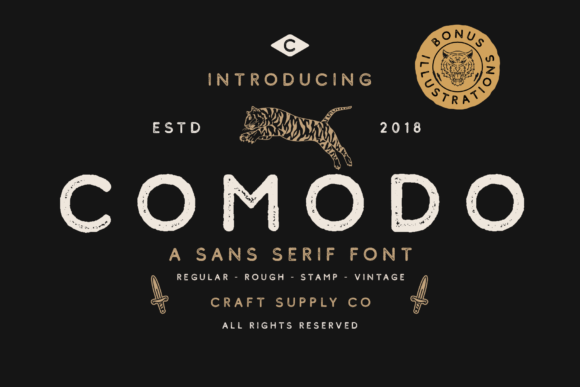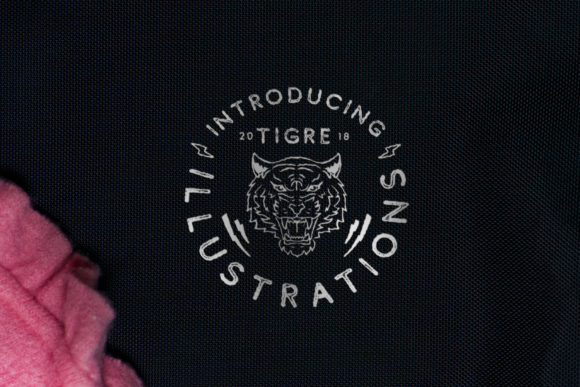
Comodo Font: Vintage Sans Serif for Branding & Logo Design
About the Comodo Font
Introducing the Comodo Font, a beautifully crafted typeface designed to elevate your creative projects. The Comodo font family is a cozy sans serif family that consists out of 4 unique styles.
It’s the perfect font for print & digital designs. It’s a professional looking font, which makes it great for packaging, brand identity and more professional designs. It also has enough playfulness to be a supportive font on creative designs, such as crafts, quotes, invites and more.
Comodo excels in headlines, short-form text, and branding applications where a friendly yet professional feel is desired. Its versatility makes it suitable for packaging design, logos, and short marketing materials. However, its relatively low x-height makes it less ideal for body text or lengthy paragraphs; readability suffers at smaller sizes.
For optimal pairings, consider combining Comodo with a classic serif like Garamond for a sophisticated contrast, or a geometric sans-serif like Futura for a modern, balanced aesthetic. A playful script font like Pacifico could also complement its informal qualities in specific applications, such as invitations or craft-related projects.
The Comodo font projects a friendly and approachable personality, blending professionalism with a touch of playfulness. This makes it particularly well-suited to brands focusing on approachability, quality, and creativity.